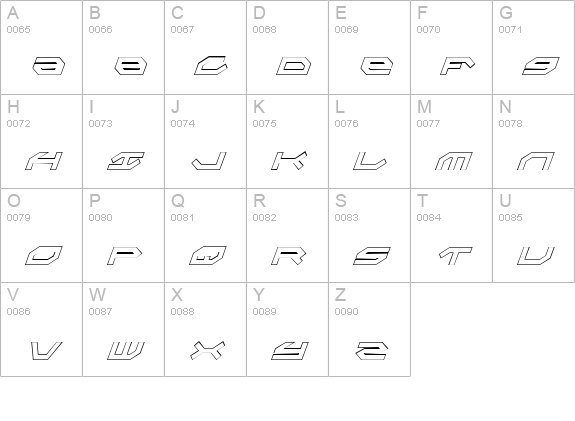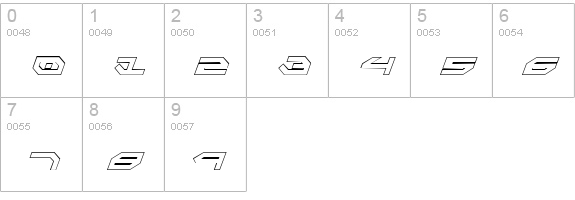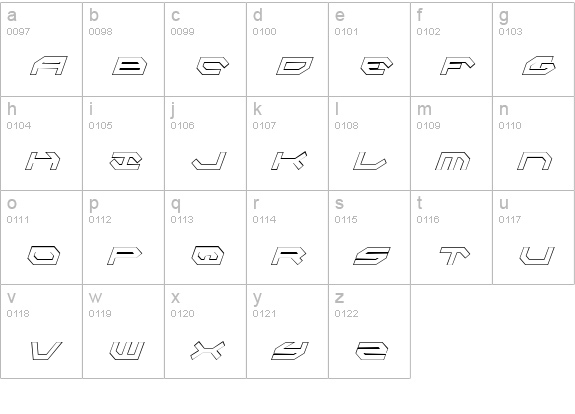
The Taskforce Outline CondItalic font is a sleek and modern typeface that exudes professionalism and sophistication. Its condensed italic design adds a touch of elegance to any project, making it perfect for titles, headers, and other design elements. With its clean lines and sharp angles, this font is sure to make a statement and catch the eye of your audience. This versatile font is ideal for a wide range of applications, from branding and advertising to web design and print materials. Its bold and distinctive style ensures that your message will stand out and leave a lasting impression. Best of all, the Taskforce Outline CondItalic font is completely free to download at FontsMarket.com. Whether you're a professional designer looking to enhance your projects or a hobbyist seeking to add a touch of flair to your creations, this font is the perfect choice. Don't miss out on the opportunity to elevate your designs with this stunning typeface – download it today and see the difference it can make!